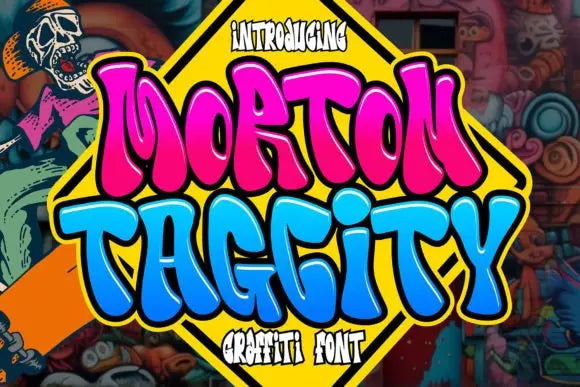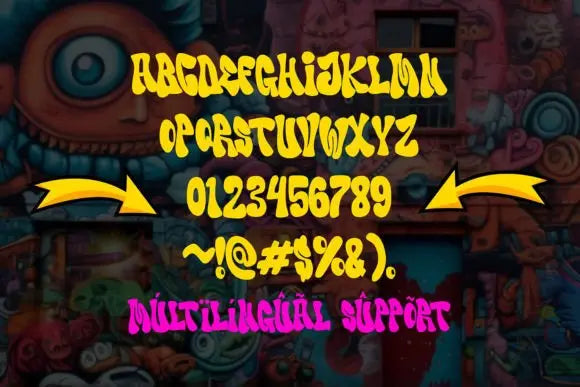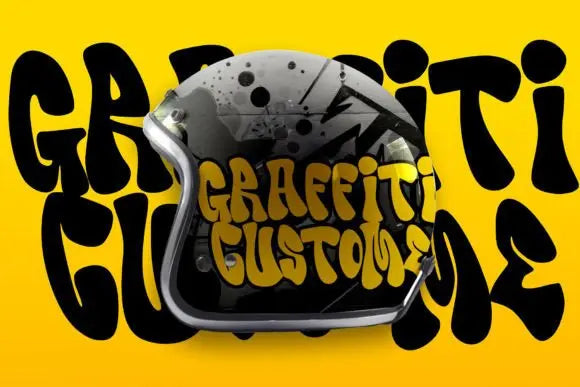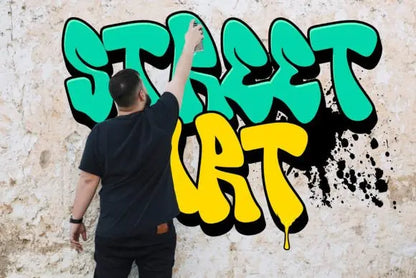
Morton Taggity Font
Tag Your Creativity with Morton Taggity Font
Why Morton Taggity Font is a Must-Have for Graffiti Art?
For those who love street art and graffiti vibes, Morton Taggity Font is the ultimate handwritten-style typeface. Inspired by urban culture, tagging, and hip-hop, this font brings a raw, expressive, and rebellious feel to any project.
Morton Taggity Font – Raw, Edgy & Street-Style
With its handwritten strokes and graffiti-style elements, this font is ideal for underground music branding, fashion merchandise, and hip-hop event promotions.
Key Features of Morton Taggity Font:
✦ Authentic Street Art Style – Perfect for graffiti branding, hip-hop, and streetwear.
✦ Handwritten & Expressive – Captures true urban culture.
✦ Versatile for Digital & Print – Works great for logos, T-shirts, and posters.
Show off your street art passion with Morton Taggity Font – where urban energy meets design!